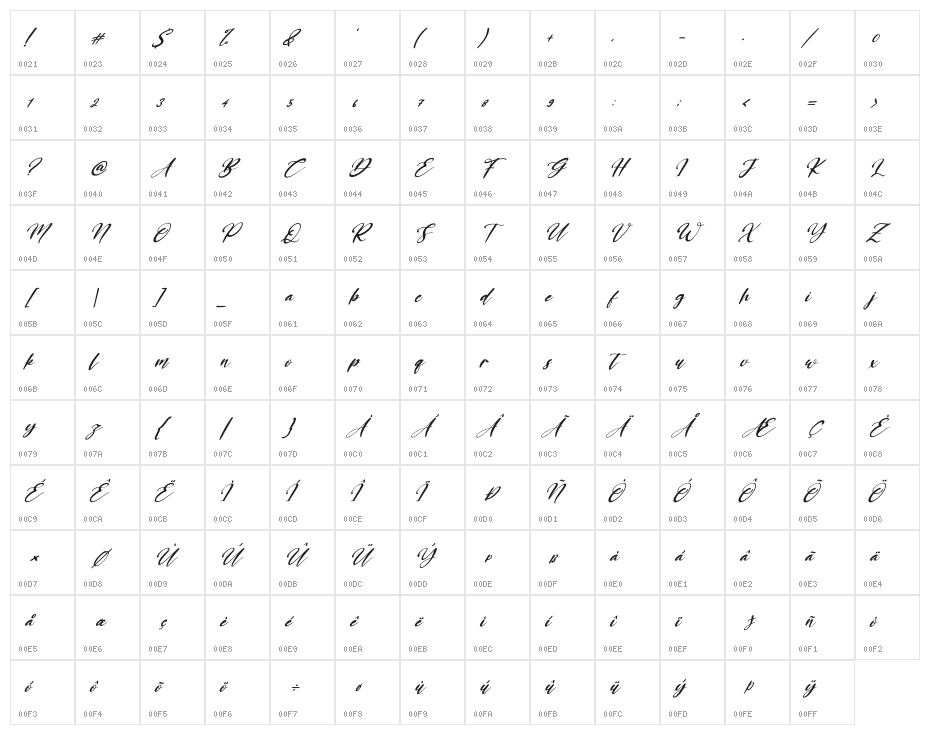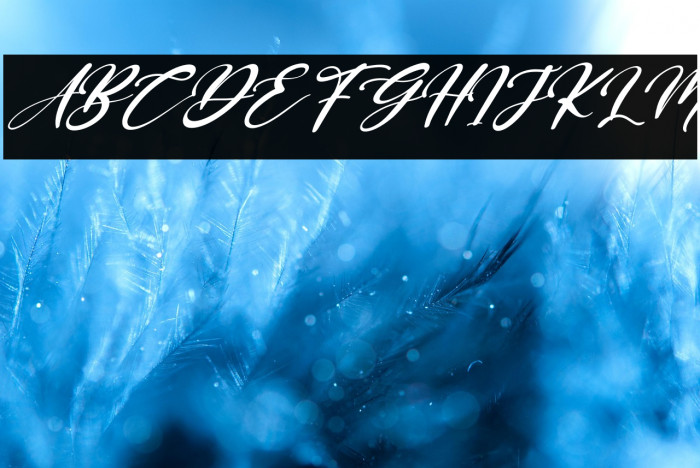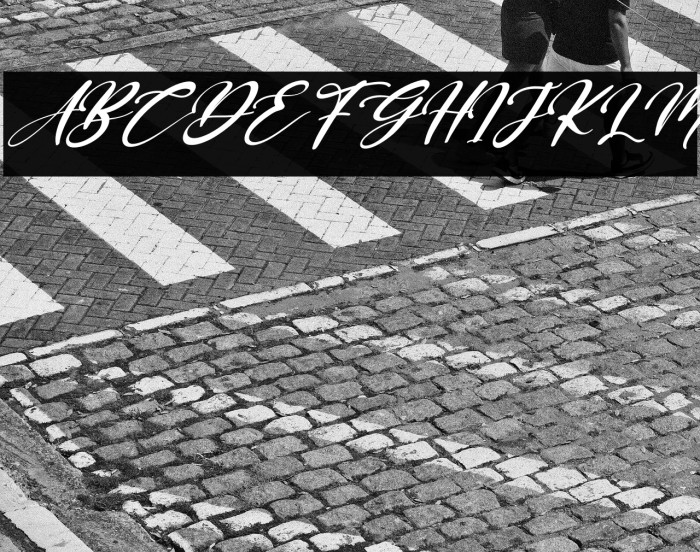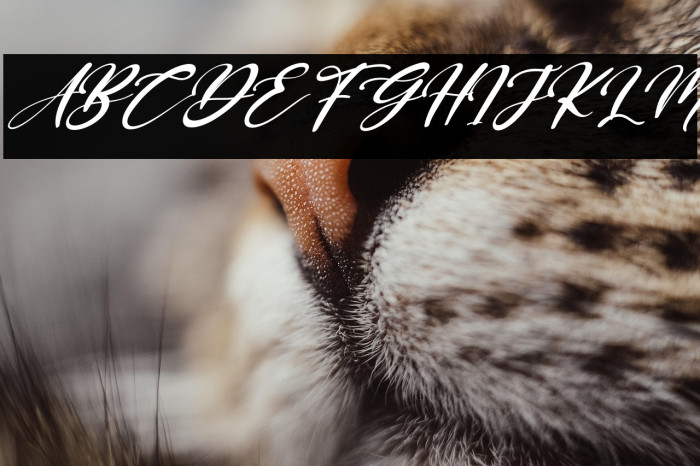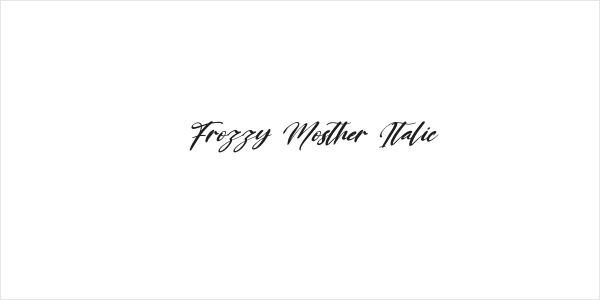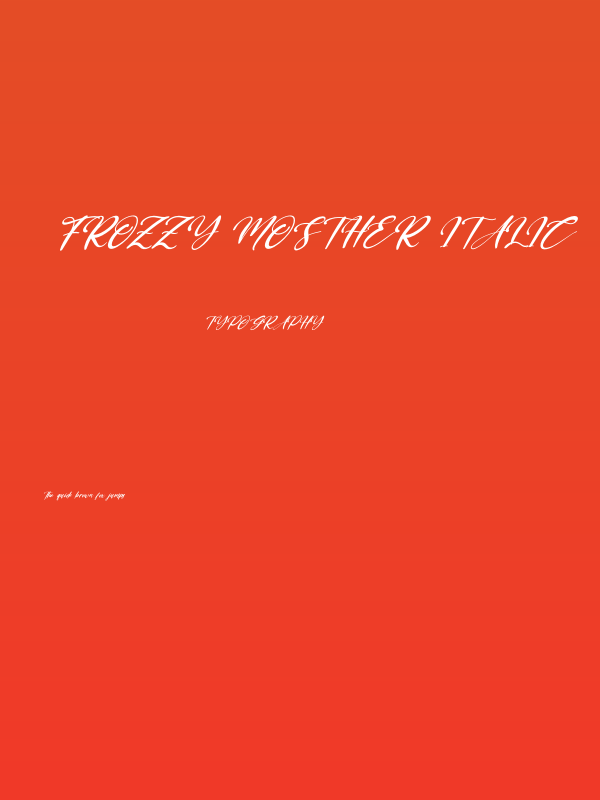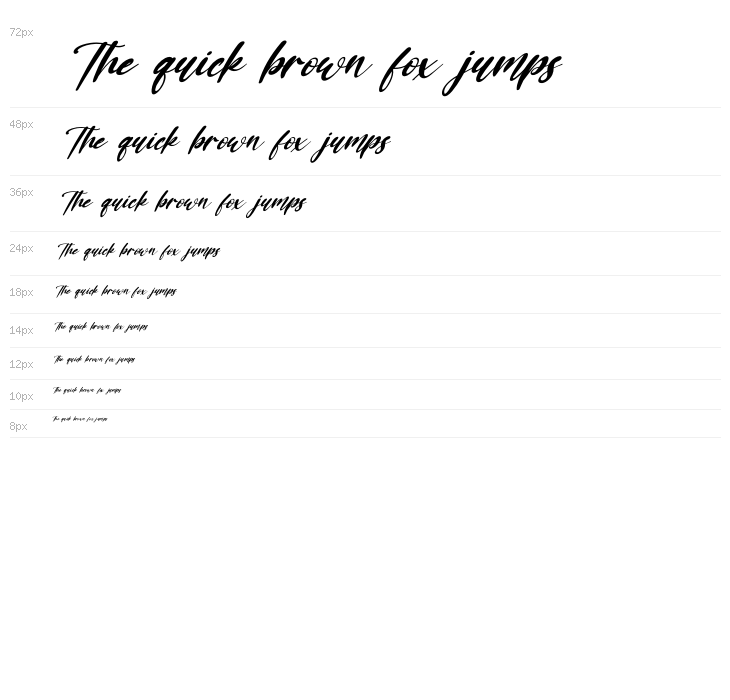
Frozzy Mosther Italic Font
Frozzy Mosther Italic Description
This font features an elegant and flowing script style, characterized by its smooth, cursive strokes and a sense of fluidity. The uppercase letters are ornate and slightly elongated, giving a sense of sophistication and grace. The lowercase letters maintain a consistent flow, with gentle curves and loops that enhance readability while preserving the artistic flair. The numerals and special characters are designed to match the overall aesthetic, ensuring a cohesive look across all text elements. This font's italic nature adds a dynamic and stylish touch, making it suitable for creative and expressive designs.
Frozzy Mosther Italic